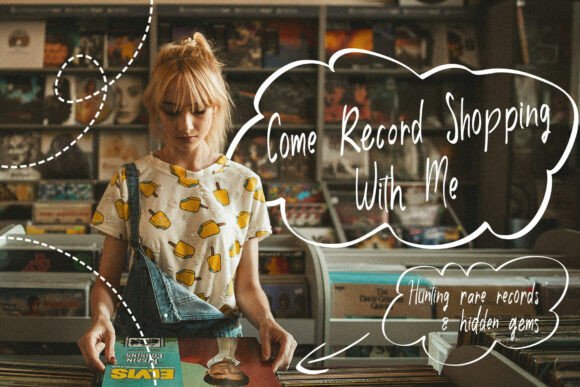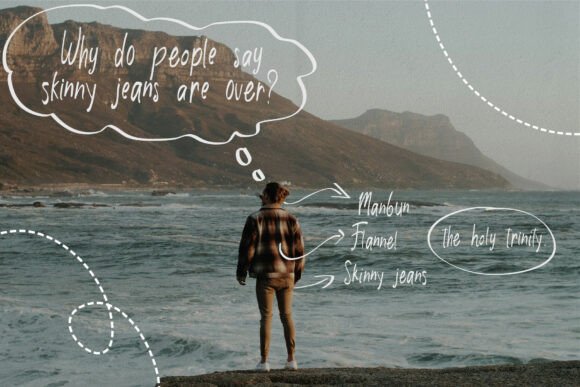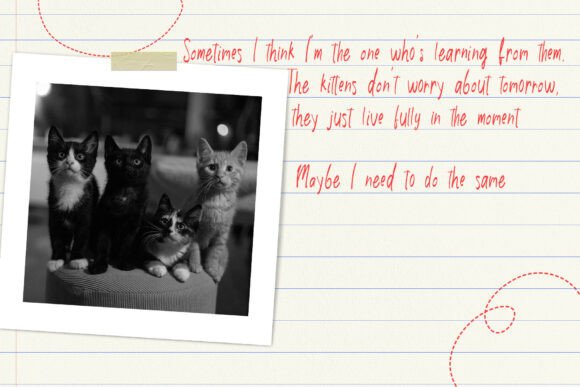
Introduction to Clumsy Notes Font
Clumsy Notes is a playful handwritten font that captures the charm of imperfect doodles and everyday notes.
With its quirky strokes and natural flow, it feels like a real notebook scribble Perfect for planners, journals, school projects, or any design that needs a handwritten, lighthearted touch.
Key Features of Clumsy Notes Font
Why Choose Clumsy Notes Font?
Clumsy Notes Font offers exceptional quality and versatility, making it a valuable addition to your design toolkit. Whether you’re creating for personal projects or commercial use, Clumsy Notes Font delivers professional results.